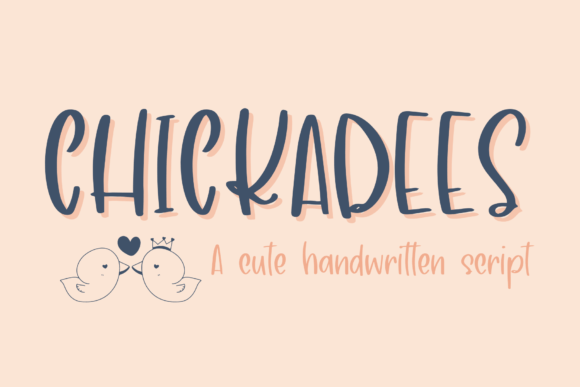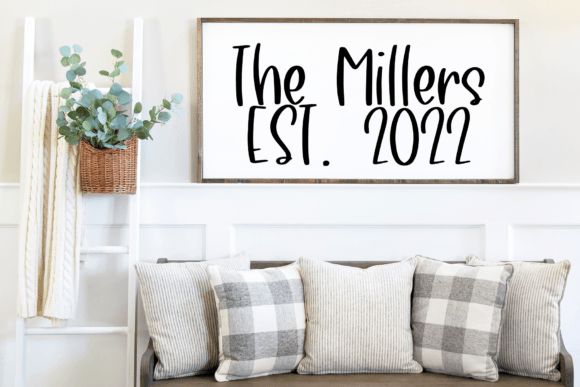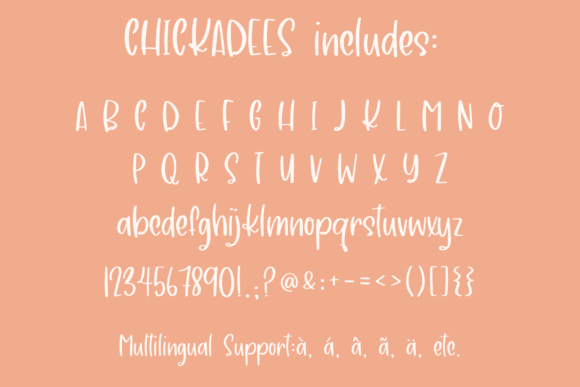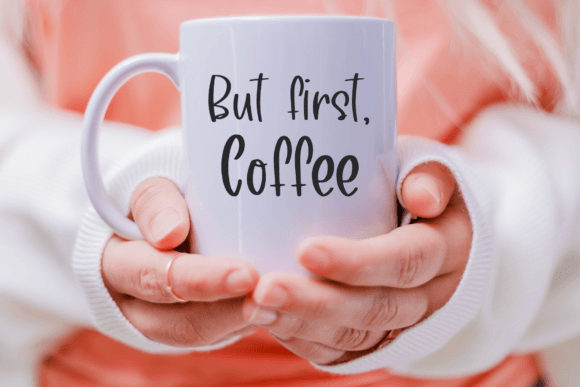
Chickadees Font: Cute Handwritten Script for Cricut & DIY Crafts
About the Chickadees Font
Discover the charm of Chickadees Font. This font is a perfect blend of modern aesthetics and classic appeal. This cute handwritten font is perfect for fun logos, greeting cards, t-shirt design, stickers, social media, crafts, and much more.
Chickadees Font Usage Examples
Chickadees Font Example